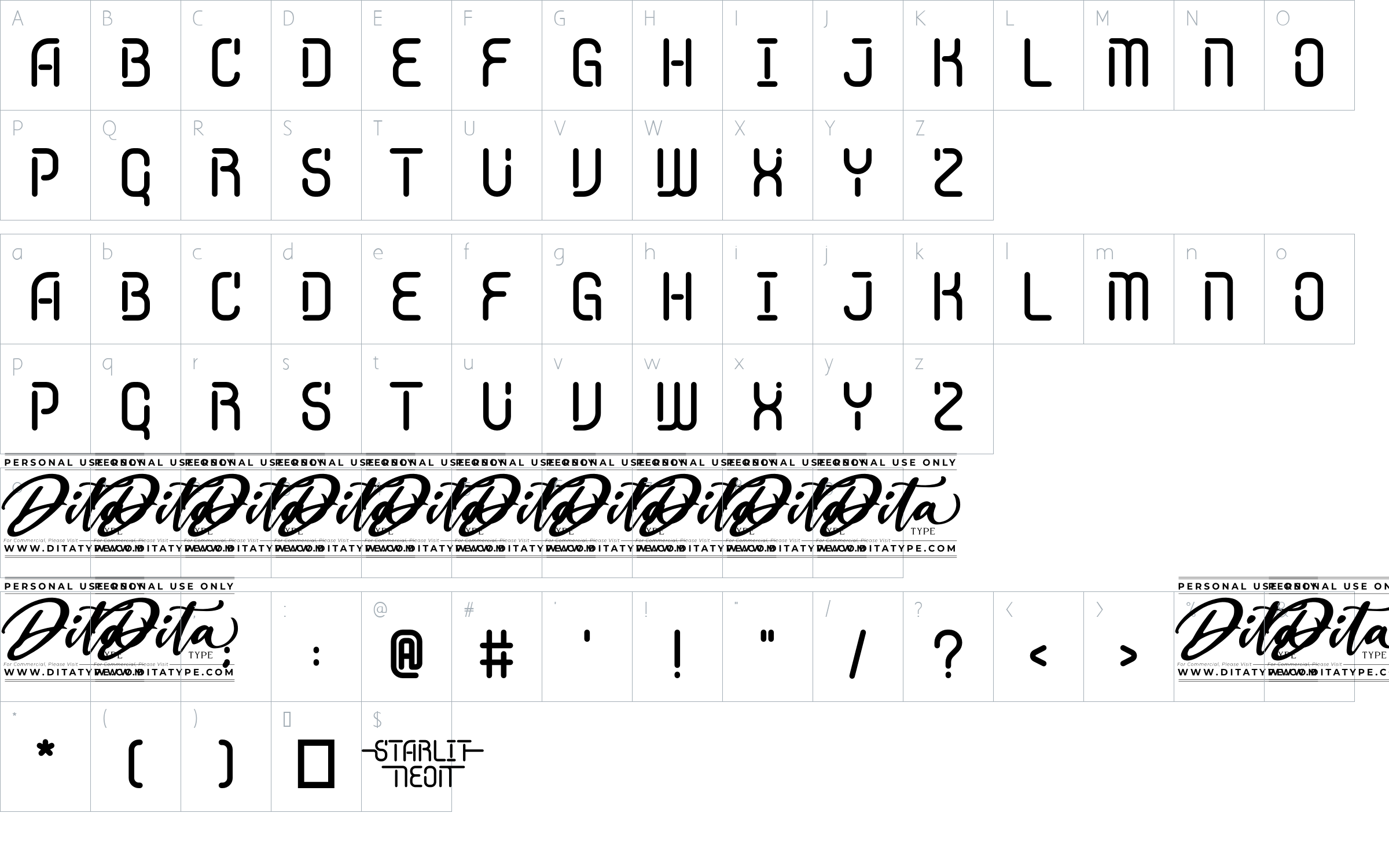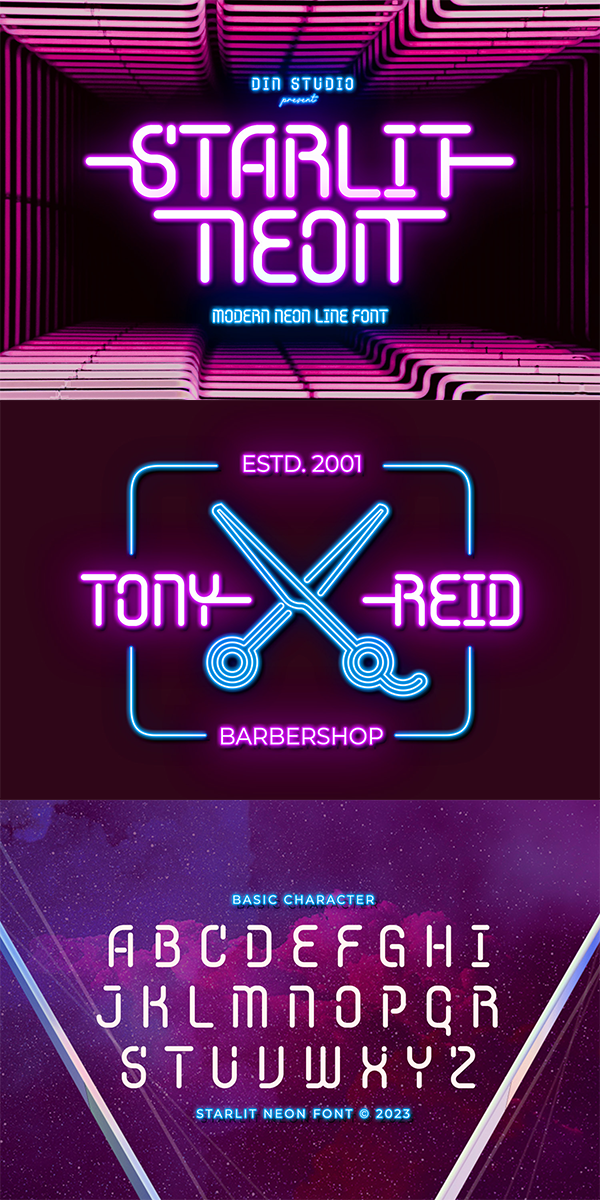
Starlit Neon Font
About Starlit Neon
Starlit Neon is a delightful display font that combines the elegance of rounded letterforms with the captivating allure of neon lights. With its bold uppercase characters and unique design, this typeface adds a touch of playfulness and charm to your projects. The defining feature of Starlit Neon lies in its rounded letterforms, which exude a sense of softness and approachability. Each letter is meticulously crafted with smooth curves, creating a harmonious and pleasing aesthetic. The rounded shapes give the font a friendly and welcoming appearance, while the neon style adds a touch of excitement and vibrancy.
Starlit Neon perfect for designs like headlines, logos, and eye-catching titles that seek to make a bold statement with a touch of whimsy. Whether you’re creating posters, branding materials, digital artwork, or anything in between, this font will infuse your projects with a sense of joy and uniqueness. It particularly shines in applications related to entertainment, children’s products, beauty, and lifestyle themes. Find out more ways to use this font by taking a look at the font preview.